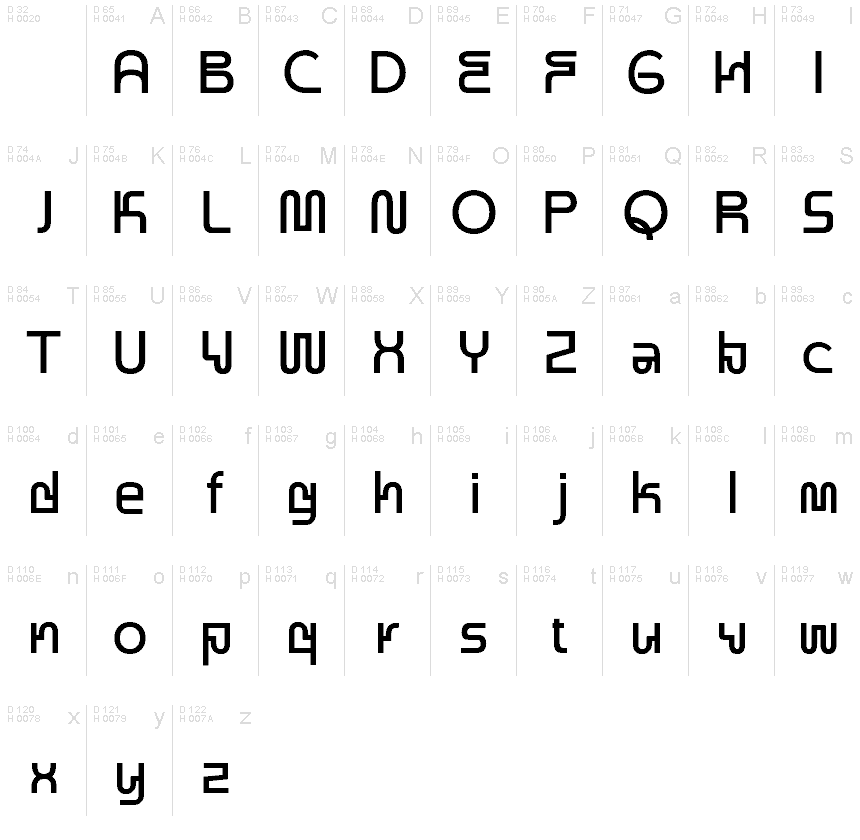
CS Hector Regular Demo
CS Hector font by Craft Supply Co. is a sleek modern font designed for contemporary applications in branding and tech industries. The geometric display typefaces features clean lines with evenly sized and spaced letters, making it perfectly suitable for logo design, poster design, or website design with streamlined ease.